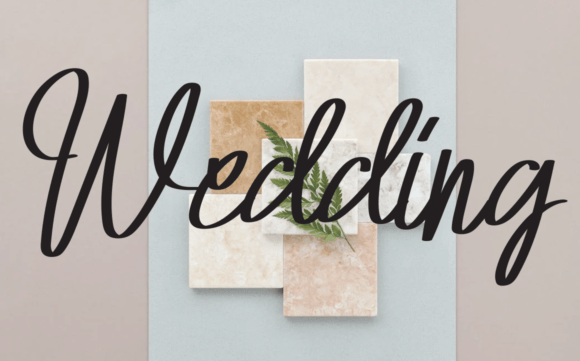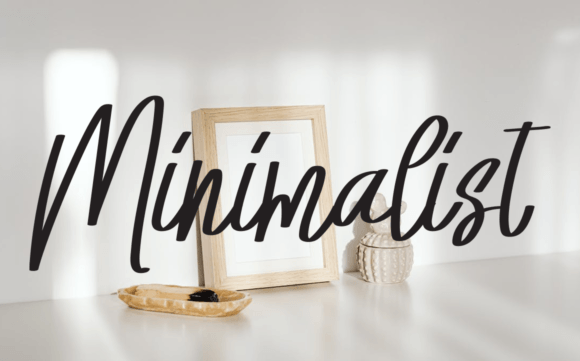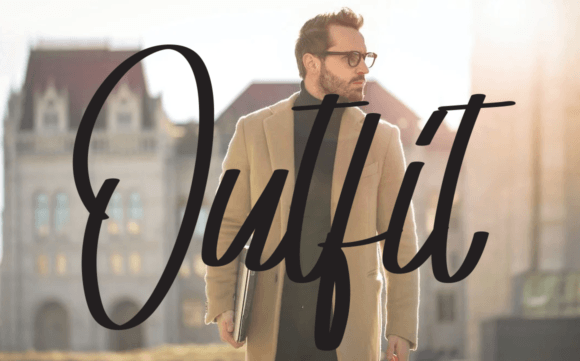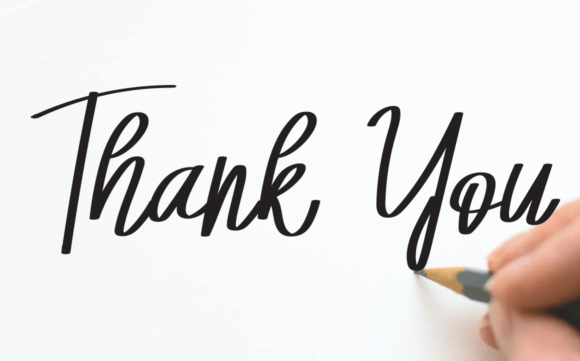
Hello Winter Font
About Hello Winter Font
A Cheerful Handwritten Typeface for Any Occasion
The Hello Winter Font download delivers a friendly and fun handwritten style that feels joyful and approachable. Whether you’re creating festive designs, personal projects, or professional presentations, this font brings a warm and delightful touch to your work.
Its rounded letters and casual strokes make it ideal for any project that needs a personal and uplifting look.
Perfect for Crafts and Creative Design
You can use Hello Winter Font across a wide range of creative applications, such as:
• Greeting cards for holidays or birthdays
• DIY crafts and printable art
• Product packaging and handmade goods
• Digital design projects and presentations
• Social media content and seasonal posts
Because of its versatility, this font can easily become your go-to for cheerful and inviting visual content.
Easy to Use and Readable
The Hello Winter Font features clean letterforms that maintain high readability even at smaller sizes. Its playful structure helps bring personality without compromising clarity, making it perfect for both print and web use.
Brighten your design projects with Hello Winter Font—a typeface that adds charm, warmth, and personality to anything you create.